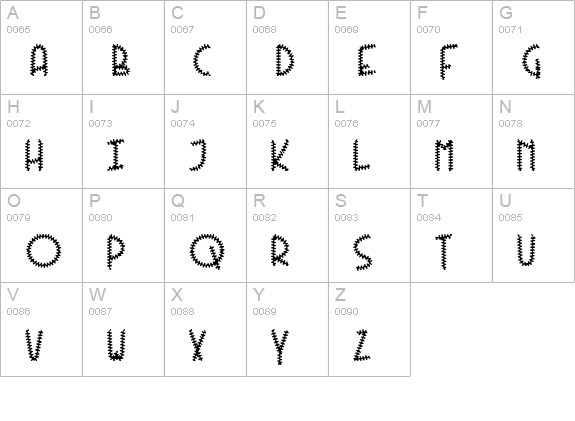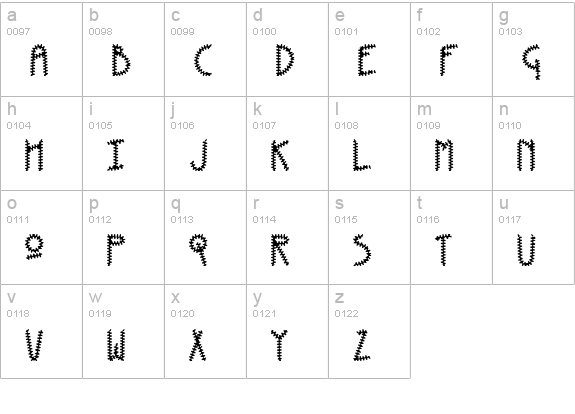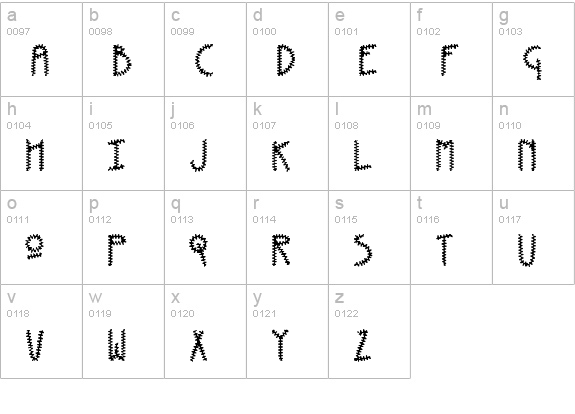
KneeblsRuffled Font Details
KneeblsRuffled is a stunningly unique font that is sure to make a bold statement in any design project. Its ruffled edges and artistic strokes give it a whimsical and playful feel, perfect for bringing a touch of creativity to your designs. This font is not only visually captivating, but it also offers versatility and legibility, making it suitable for a wide range of projects. Whether you're designing a logo, creating eye-catching headlines, or crafting invitations, KneeblsRuffled will add a touch of charm and personality to your work. One of the best parts about KneeblsRuffled is that it is available for free! Yes, you heard it right - you can freely download this amazing font at FontsMarket.com. This means that you can enjoy the beauty and uniqueness of KneeblsRuffled without having to spend a dime. With its free availability, KneeblsRuffled allows designers of all levels to have access to a high-quality font that will enhance their creative projects. So why wait? Head over to FontsMarket.com now and download KneeblsRuffled to add a touch of whimsy and elegance to your designs.